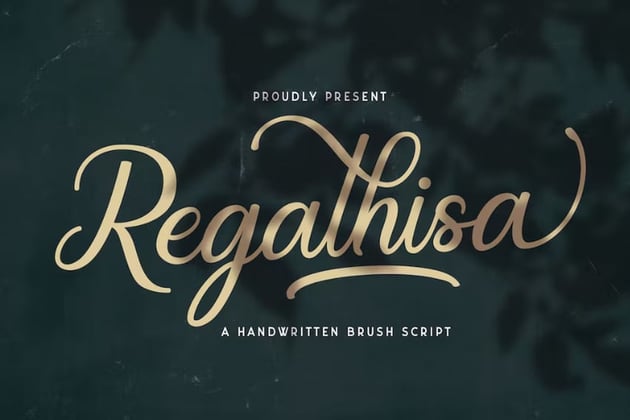
What Are the Most Popular Fonts for Cricut?
What is the most popular font for Cricut? With so many different project types, that answer comes in many different forms. There are so many fonts that are perfectly suited to many different projects, and sometimes it's better to look at a few of the best fonts to choose from.
Top 5 Handwritten Cricut Fonts
Handwritten fonts are very versatile to use on Cricut Design Space projects that have a slightly more natural and quirky feeling. These fonts are ideal for adding character to your projects as the letters are not always uniform, which can add to the handcrafted style of your projects.
1. Adistha Handwritten Script (OTF & TTF)
Let's start off with a nice, soft, handwritten font. Adistha Handwritten Script can be used for wedding invitations, business branding, a simple book cover, or on a frame for home decor. This is one of the most popular fonts for Cricut wedding decor.
2. My Sweet Farmhouse (OTF & TTF)
This one is a quirky font, and it has a bubble type look which contrasts nicely with the previous example. Try it on a project where you are trying to achieve a slightly more youthful look. This is one of the more popular Cricut fonts for names.
3. Summer (OTF & TTF)
What are the most popular Cricut fonts for signs? Summer is a strong contender. This font has a slightly stronger look, and while the letters still have an uneven look because the lines aren't uniform, it is the perfect font to choose for a title for your project.
4. Cafe Matcha (OTF & TTF)
This is one of the best Cricut fonts that I have in my arsenal. The letters are smooth and slightly thicker than some other fonts, which makes it a lovely font to use for so many different projects like titles or even paragraphs on posters.
5. Milky Shake (OTF & TTF)
This handwritten font is quite fresh, and its natural style makes it the perfect choice for titles, posters, and much more. It's easy to see why it is one of the most popular fonts for Cricut projects.
5 Most Popular Calligraphy Fonts for Cricut
Calligraphy is one of those things that I have never been able to quite get the hang of drawing freehand. Doing the thicker downstrokes and the lighter, thinner upstrokes is very challenging.
Luckily, there are so many amazing calligraphy fonts that we can use, so we don't ever have to stress ourselves over learning it.
These are some of the most popular calligraphy fonts for Cricut Design Space that you can use for your projects.
1. Regalhisa (OTF & TTF)
This font has a very subtle calligraphy style, and it also falls into the category of a brush script font. This is one of the best fonts for Cricut. It will change any project into a true piece of art.
2. Quennsland (OTF & TTF)
This calligraphy font has a really classy, elegant look, and it would be perfect on stationery, especially of the wedding variety. It's proved to be a very popular font for handmade Cricut wedding decor projects because of the readability and classiness of the font.
3. Agnetta (OTF & TTF)
This font has more of a classical look, and its height makes it the perfect choice for areas where you need additional height but can't sacrifice the width. When you need good fonts for Cricut, this is a great choice. It works beautifully for logos, titles, invitations, and even social media branding projects.
4. Elizabeth (OTF & TTF)
Elizabeth has the hallmarks of a typical calligraphy font, but combined with the scripting and cursive style, it makes it a much more natural, handcrafted style font. This makes it one of the most popular cursive fonts that I like to use with my Cricut machines.
5. Willow Bloom (OTF & TTF)
The hand lettering style of this calligraphy font and the alternate characters that come alongside it put it high on the list of one of the most popular Cricut fonts. The flourishes that you can add to the letters make it an extremely popular choice of cursive font to use on Cricut with names and titles.
Most Popular Cursive Fonts for Cricut
Script fonts are one of my favourite styles because of the cursive look, but also because of the swashes and how they partially resemble cursive writing. Script fonts are usually connected to each other because of the handwriting aspect of how the font is designed.
1. Frunch (OTF & TTF)
This bold script font has a lovely vintage feel to it, and with it being so easy to read, it makes your titles really stand out. This font also has some swashes, which means you can accentuate both the beginning and the end of your titles.
2. Asthenia (OTF & TTF)
Good fonts for Cricut like Asthenia will work well for just about any project. It's a little more typical of a script font, with slightly more obviously uneven weighting in the strokes of the font. It is this uneven weighting that makes it so pretty to look at, and it's on my top list of popular Cricut fonts to use in many projects.